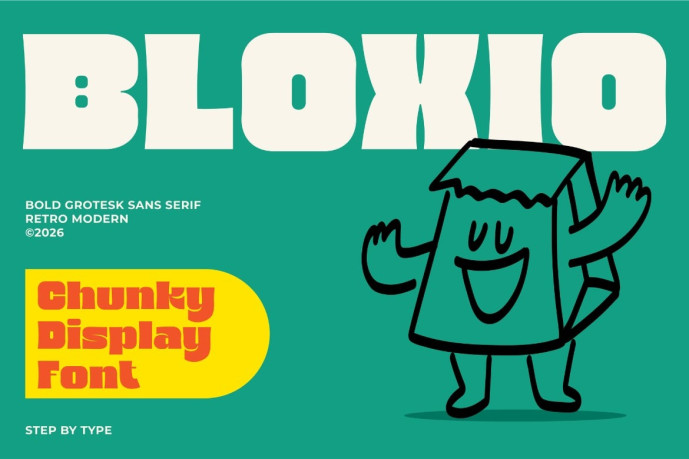
Bloxio Font
Bloxio Font is a fun, blocky display font bursting with personality and energy. With its chunky letterforms and playful character, Bloxio is the perfect typeface for projects that need to feel bold, friendly, and full of life.
Whether you’re designing for kids, games, events, or any creative project that demands a big, cheerful presence — Bloxio brings the fun and makes your design impossible to ignore.